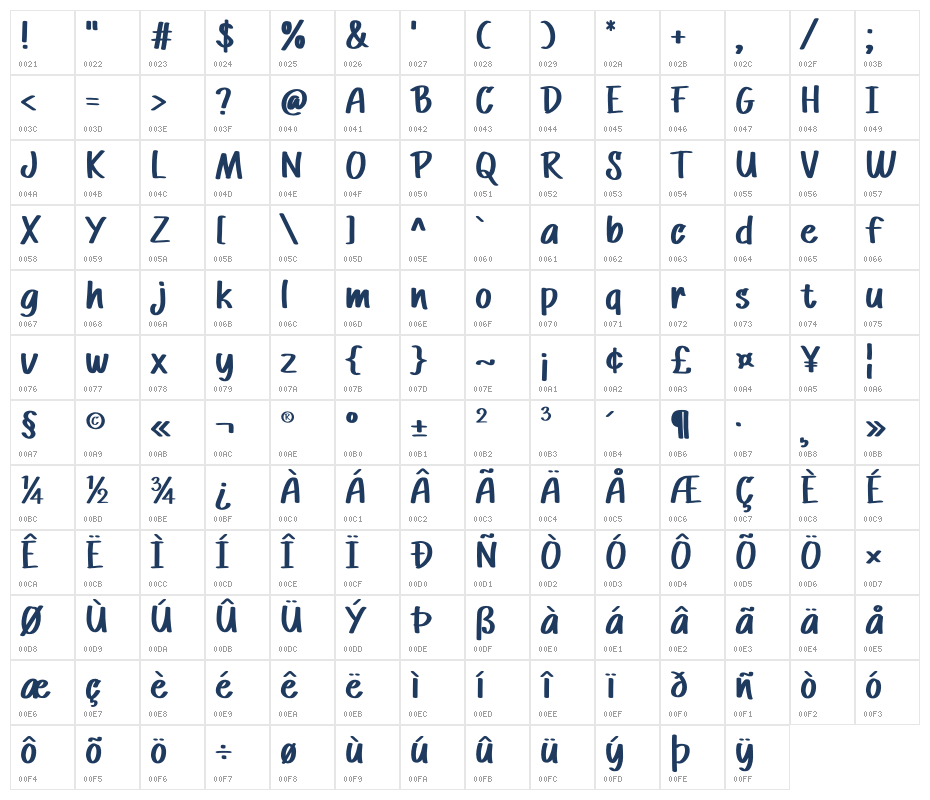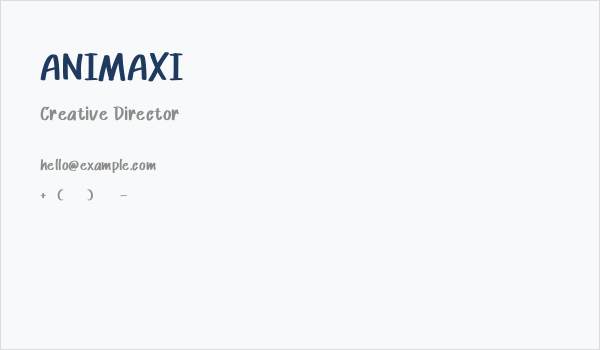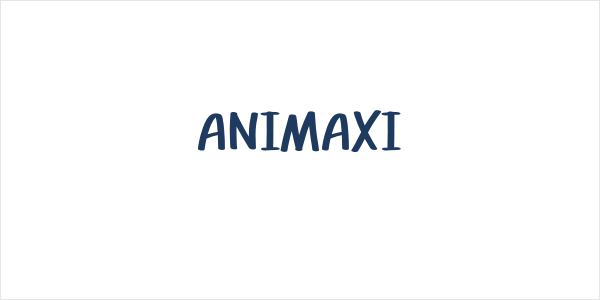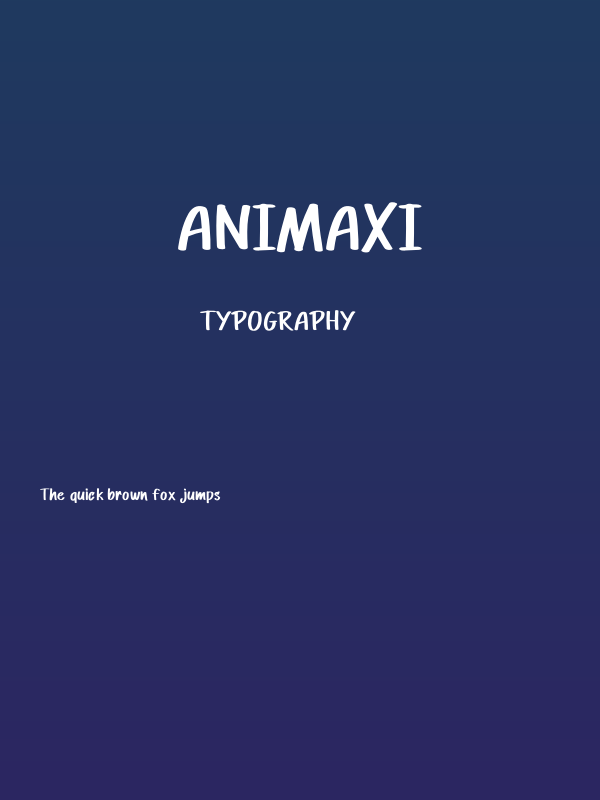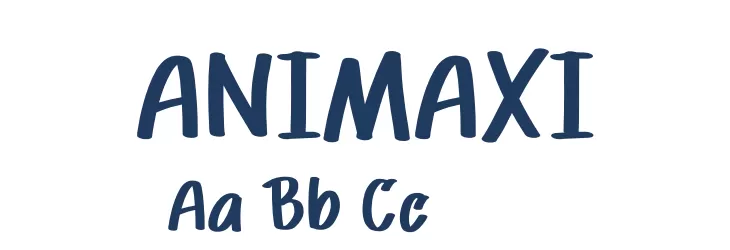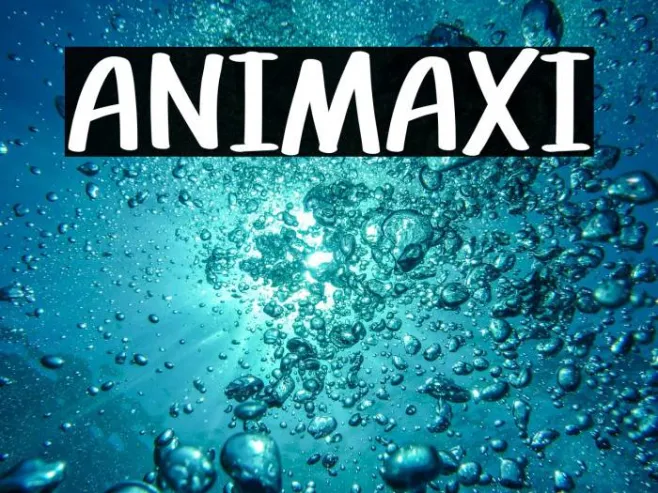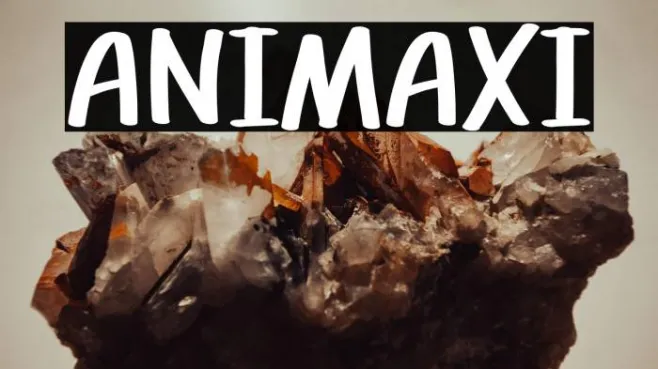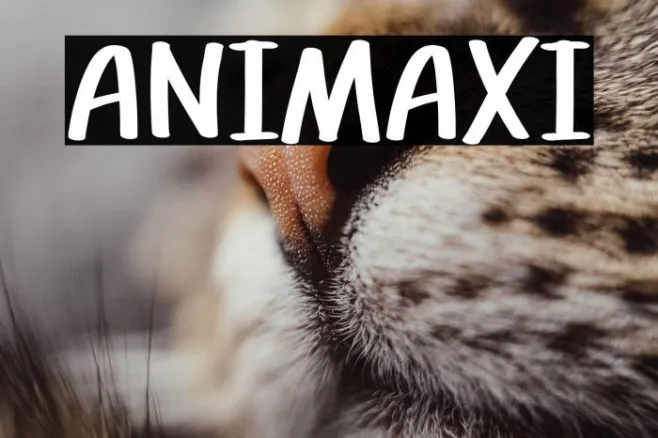
ANIMAXI Font
ANIMAXI Description
A playful, handwritten style font with a casual and friendly appearance, featuring slightly irregular strokes and a smooth, rounded form.
| Overall Style | Casual, Friendly, Playful |
| Use Case | Headlines, Body text, Logos, Invitations |